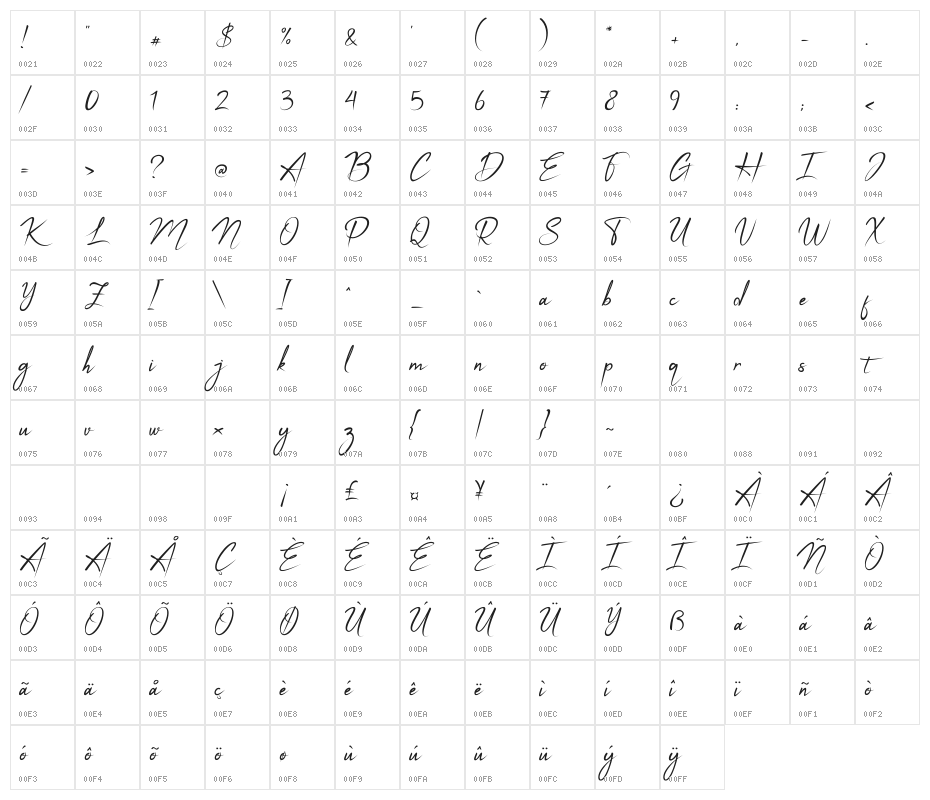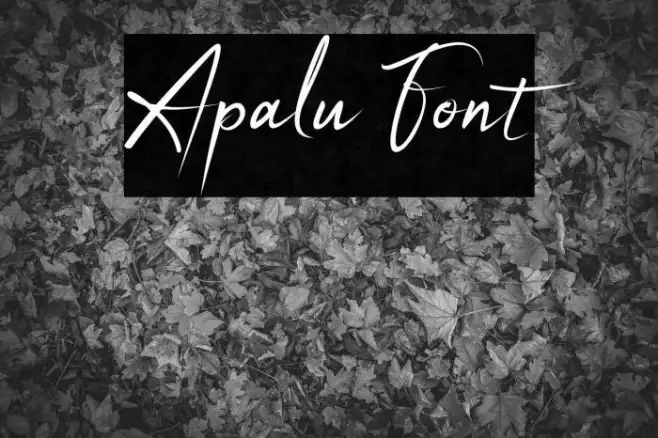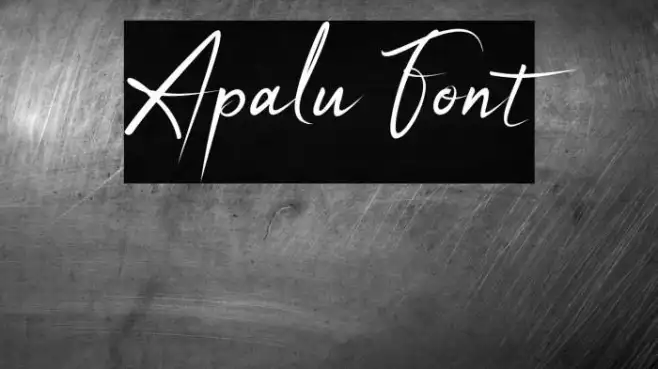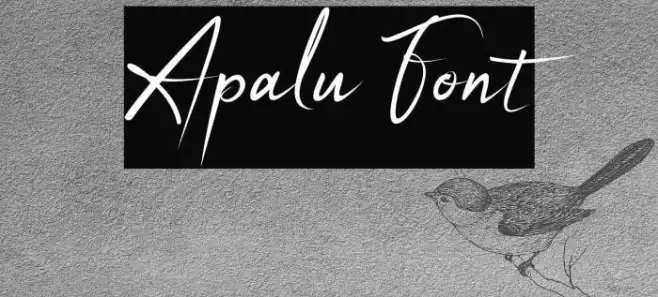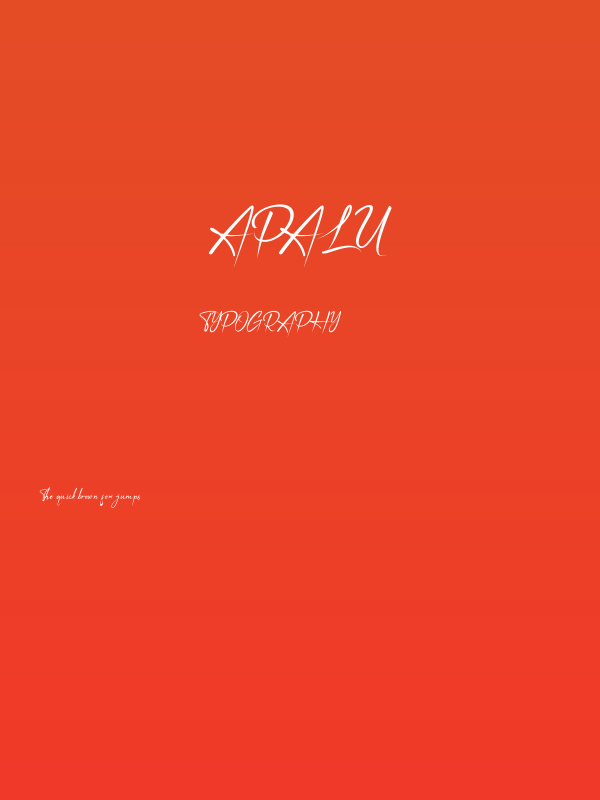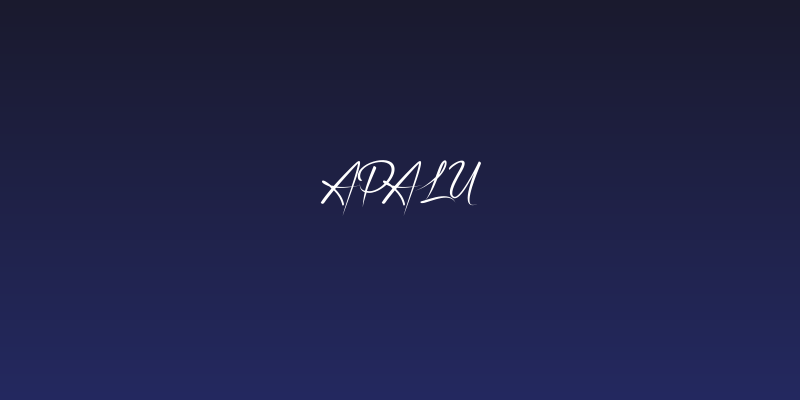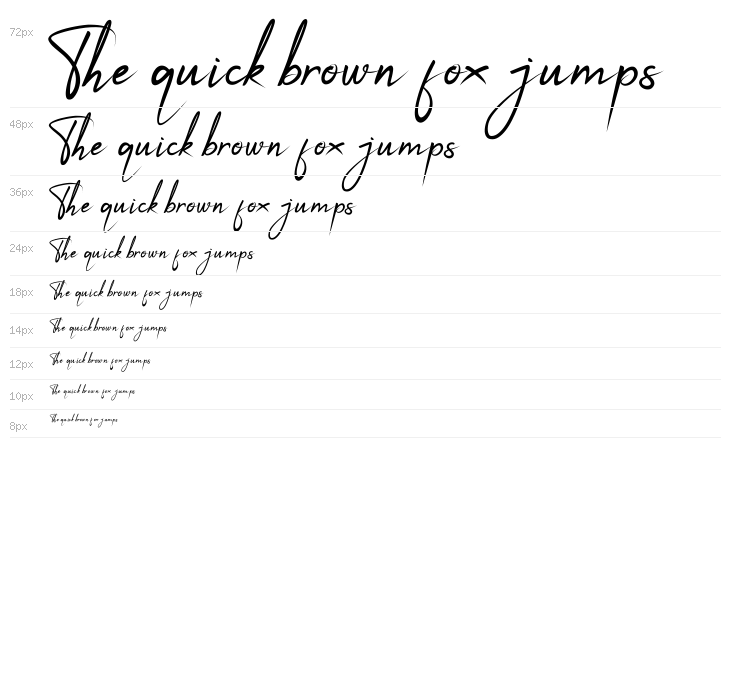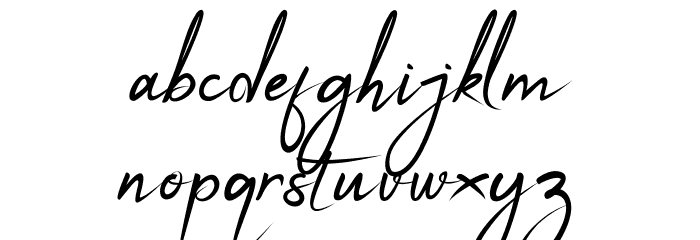
Apalu Font
Apalu Description
This font exudes a sense of elegance and fluidity, characterized by its cursive, handwritten style. The letters are connected with smooth, flowing strokes, giving it a graceful and sophisticated appearance. The uppercase letters are slightly more elaborate, with extended flourishes that add a touch of drama. The lowercase letters maintain a consistent flow, making them easy to read while retaining their artistic flair. The numerals are clear and well-defined, complementing the overall aesthetic. Special characters are thoughtfully designed to match the font's style, ensuring a cohesive look across all text elements.